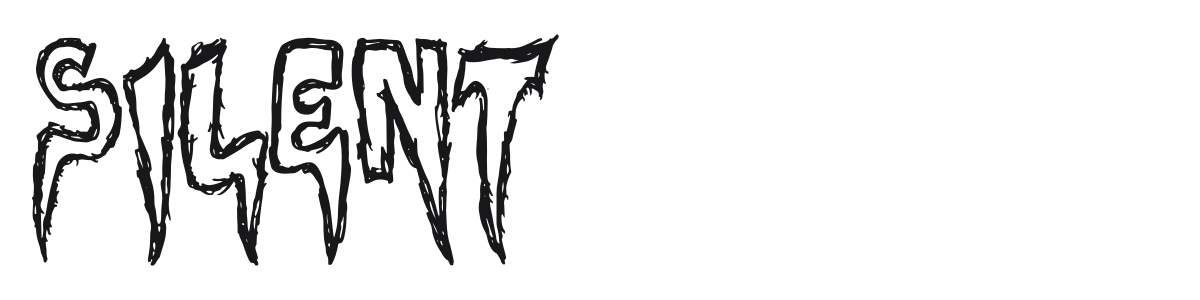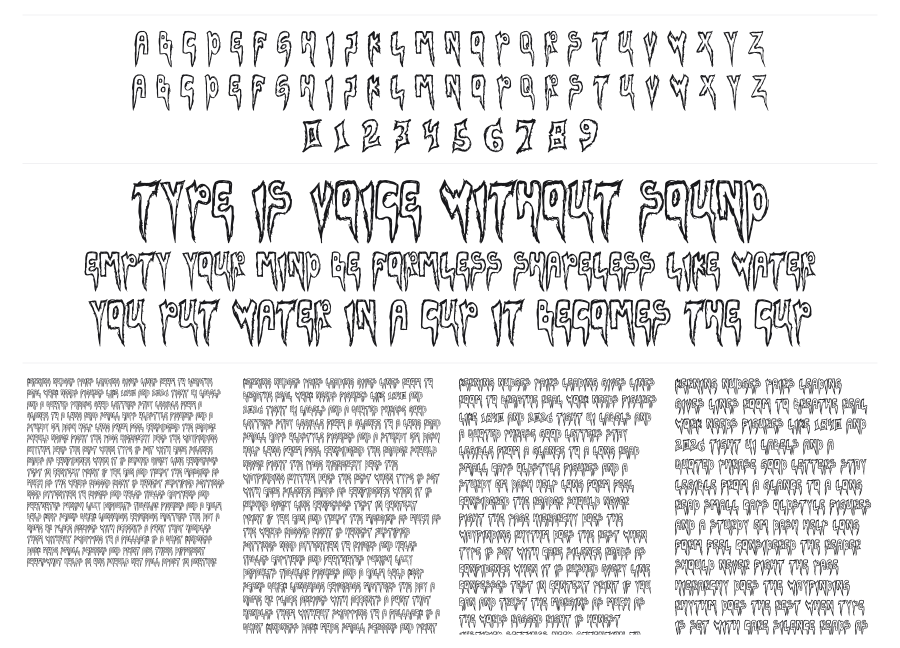
Silent
by Ditya Ananto
Silent is a heavy horror display font from Oziel89 Studio with thick, rounded strokes shredded by scratchy, fibrous texture. The characters feel hand-carved and organic, somewhere between melting rubber and torn flesh. It works best large, on posters, album covers, or anything that needs a raw, unsettling presence.